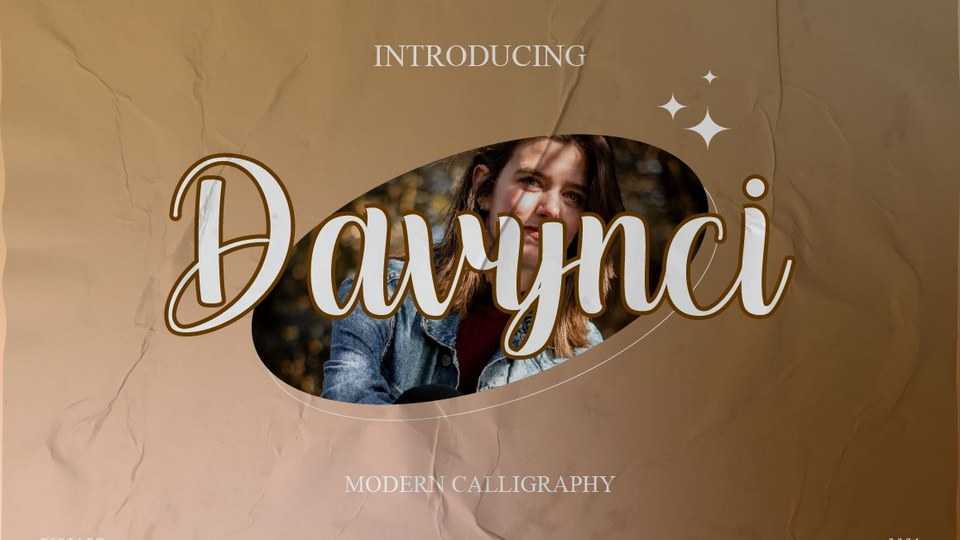
Download Davynci font, a beautiful and elegant script typeface. Davynci is defined by smooth curves and is perfect for fashion branding or editorial designs.